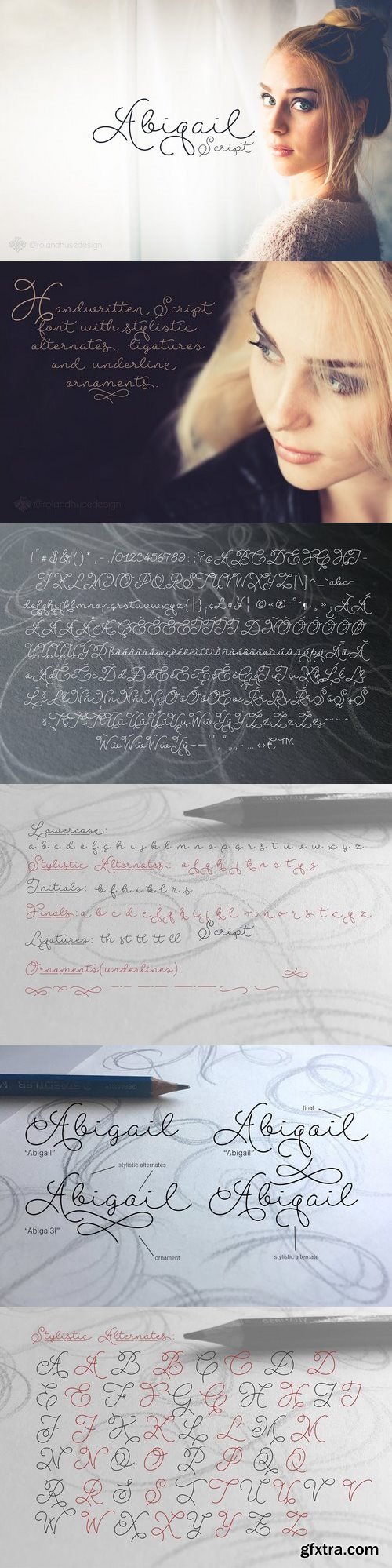
Abigail Script is a handwritten, monoline cursive font. All the uppercase letters has stylistic alternates and some lowercase letters as well, ligatures and positional forms. Also have a few ornaments in place of numbers 1-9 best fit under words up to 5-6 characters long. See the gallery for preview. It contains Eastern and Western European accented characters. Poster artwork background images are with the beautiful model Cecilia by the awesome photographer Yvonne Lukas @lensflower I hope you like this font, good luck with your project and let the creativity flow!